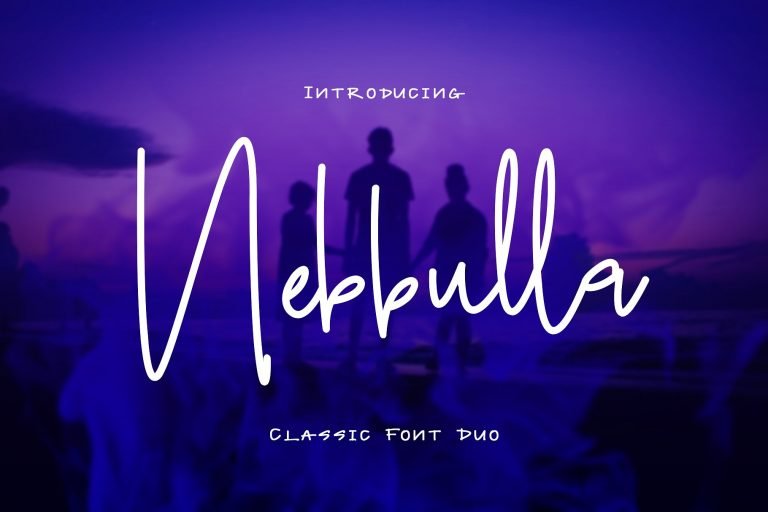
Nebbulla Handwriting Font
Continue to be a special design from the Dierstudio designer. A new fresh handmade calligraphy font. Introducing Nebbulla Font. Nebbulla is a font duo which gives an elegant classic touch to your projects. Very suitable for greeting cards, branding materials, business cards, quotes, posters, and more! This font are perfect for wedding postcard. Or you can create perfect and unique design of your logo, blog, stationery, marketing, magazines and more.